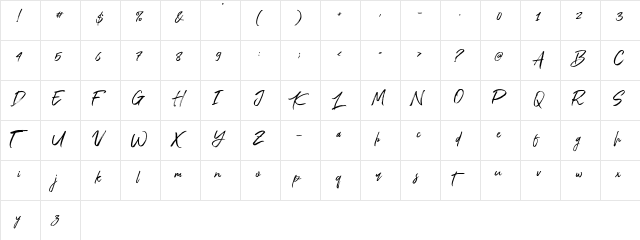
Cold Climate Regular
Design Context for Cold Climate Typeface
Cold Climate is a composed and adaptable typeface that performs quietly and consistently across a wide range of design contexts.